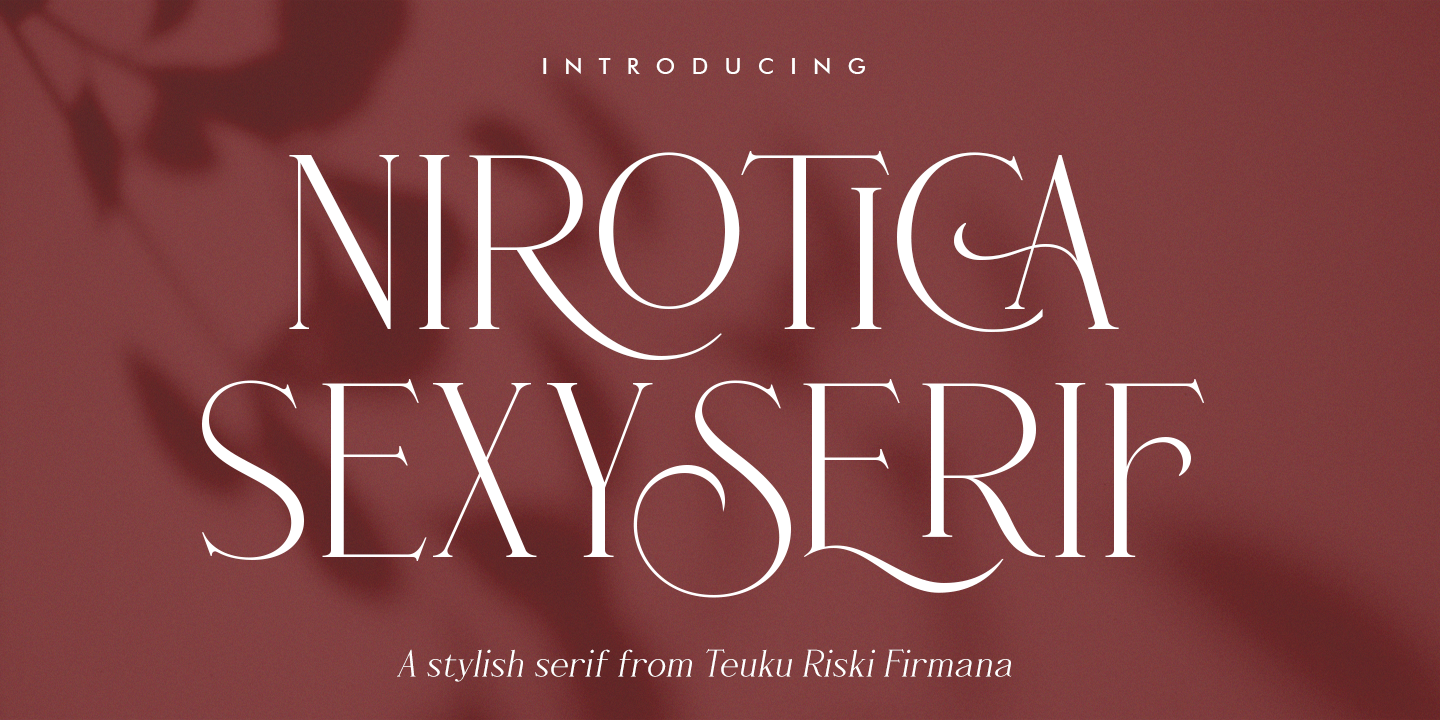
Nirotica Font is perfect for mystical brand identities, ethereal art gallery displays, spiritual wellness centers, meditation app interfaces, cosmic lifestyle campaigns, transcendent music projects, otherworldly product packaging, metaphysical book covers, enlightenment retreat materials, and transformative experience marketing. Its mystical character makes it ideal for projects requiring spiritual sophistication and transcendent visual appeal that connects with higher consciousness.
What makes Nirotica Font exciting is its profound ability to channel mystical energy and spiritual transcendence through letterforms that seem to bridge earthly communication with higher dimensional aesthetics. The font features flowing, ethereal curves with cosmic proportions that evoke spiritual awakening while maintaining excellent readability for enlightened communications. Its mystical character transforms ordinary text into expressions of higher consciousness that resonate with souls seeking deeper meaning and spiritual connection.
The Nirotica Font family includes Regular, Bold, Light, Mystical, Ethereal, Cosmic, and Transcendent variations. Each style preserves the font's spiritual essence while offering different levels of mystical intensity and transcendent weight for creating authentic otherworldly graphics. The comprehensive character set includes spiritual symbols, cosmic ornaments, mystical decorations, and transcendent glyphs essential for genuine metaphysical and spiritual typography projects.
Spiritual practitioners and consciousness brands consistently choose Nirotica Font Free Download for projects demanding authentic mystical typography solutions. The font's ethereal character instantly establishes spiritual credibility while ensuring clear communication across consciousness marketing channels. Its versatility spans from subtle mystical touches to bold statements that celebrate the infinite possibilities of spiritual growth and the transformative power of transcendent experiences.
Whether you're developing spiritual brand identities, creating consciousness marketing materials, or designing transcendent communications, Nirotica Font provides the perfect combination of mystical authenticity and contemporary functionality. The font's spiritually crafted letterforms ensure genuine cosmic character while maintaining excellent performance across various metaphysical applications and enlightened business communications.
The transcendent heritage of Nirotica Font makes it exceptional for creating soul-deep connections with audiences seeking spiritual growth and higher consciousness. Its mystical precision and ethereal appeal work seamlessly across traditional spiritual materials and modern digital consciousness platforms. The font performs transcendently in both large-scale mystical displays and intimate spiritual communications.
Ascend to higher consciousness with Nirotica Font and discover how authentic mystical typography can enhance your spiritual projects with genuine transcendent appeal and cosmic sophistication. This remarkable typeface combines ancient wisdom with contemporary functionality, making it indispensable for spiritual brands celebrating the eternal journey of consciousness and the boundless possibilities of human transcendence.